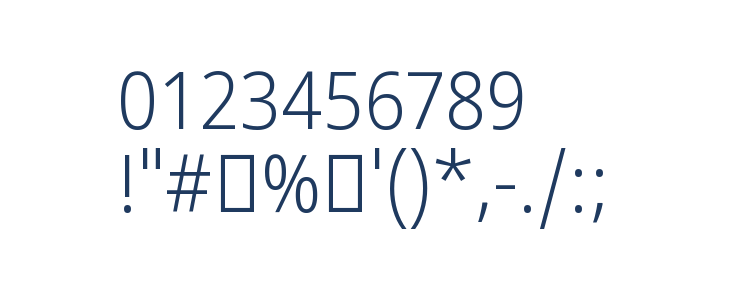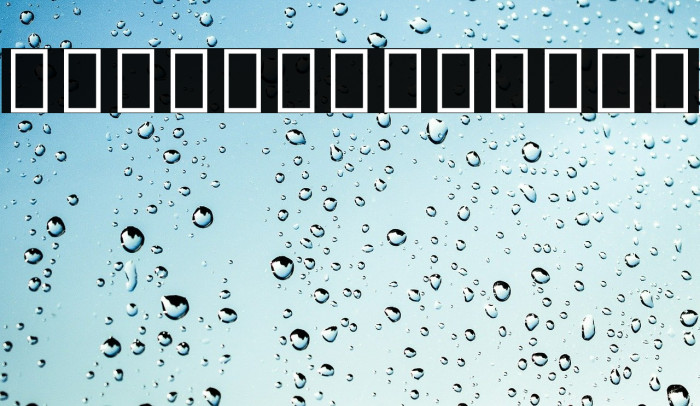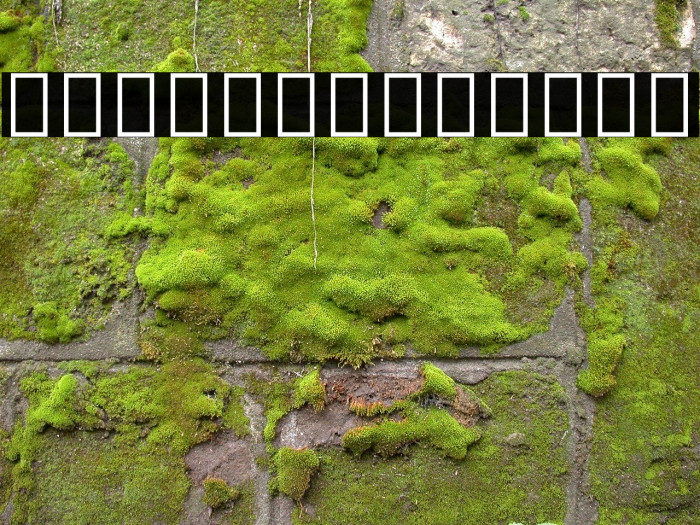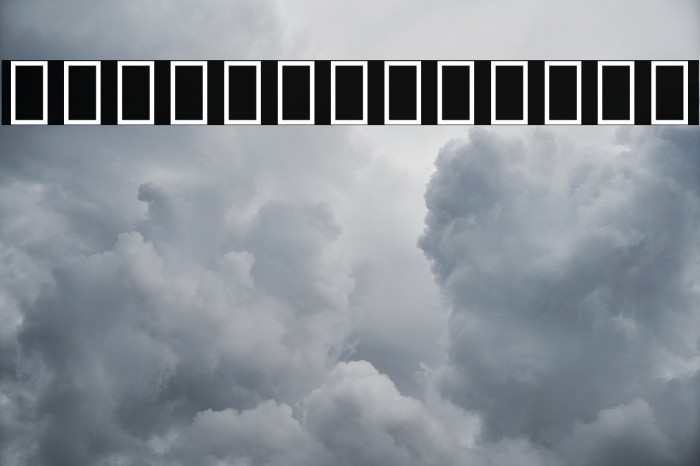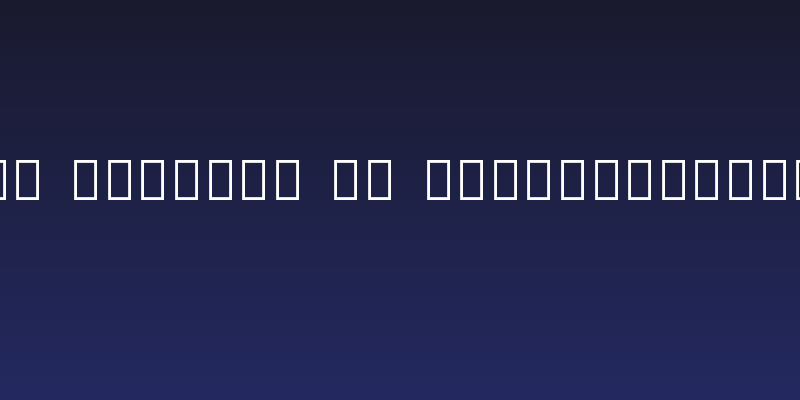
Noto Sans Sinhala UI SemiCondensed Light Font
Noto Sans Sinhala UI SemiCondensed Light Description
This font is a clean and modern sans-serif typeface with a semi-condensed structure, offering a light weight that provides an elegant and airy feel. The characters are well-defined with a consistent stroke width, making it highly legible across various sizes. Its simplicity and clarity make it suitable for user interfaces and digital displays. The numerals and special characters maintain the same design ethos, ensuring uniformity and readability. The font's design is versatile, allowing it to be used in both professional and casual contexts.
| Use Case | Headlines, Body text, User Interfaces |
| Proposed Projects | Ideal for user interfaces, digital displays, websites, and mobile applications. |